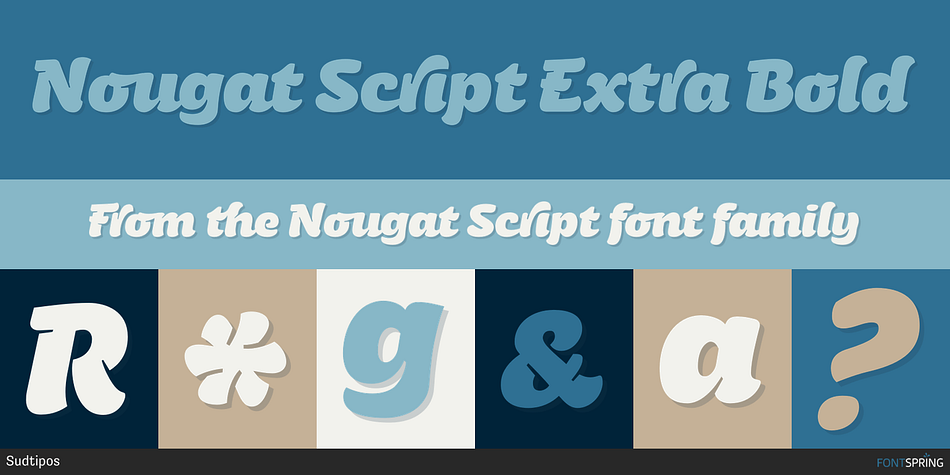
Nougat Script Extra Bold
Nougat Script is a sans serif font family published by Sudtipos.
The genesis of Nougat Script can be traced back to a significant personal event, commemorating the arrival of my first daughter, Siena. Following its inception, the font underwent considerable development, culminating in its recognition at Tipos Latinos, a prestigious showcase of Latin American typography. After a hiatus, the project experienced a resurgence, marked by substantial expansion both in character count and intricacy, resulting in four distinct writing styles encapsulated within a single font file accessible through opentype features: Script (base or normal), two glyphic alternatives featuring unique swashes, and a small cap version. Nougat Script embodies a fusion of casual elegance and typographic precision, making it ideal for sophisticated text compositions.